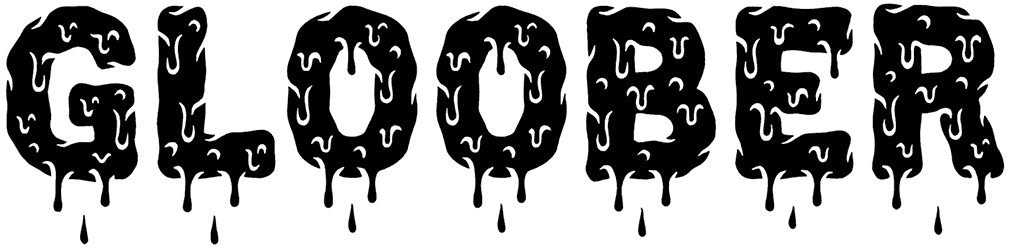
Gloober Font
Here we come again with a lovely Halloween font commonly known as the Gloober that widens your selection range by offering you two different styles. Since the characters of this all-caps slime font look like a melting candle, it looks very unique and gives a fresh breath to all your projects.
This masterpiece can add an artistic touch to your magazines, digital banners, product packaging, billboards, or flyers. Also, it leads to a sense of vitality, vivacity, tenderness, or jauntiness.